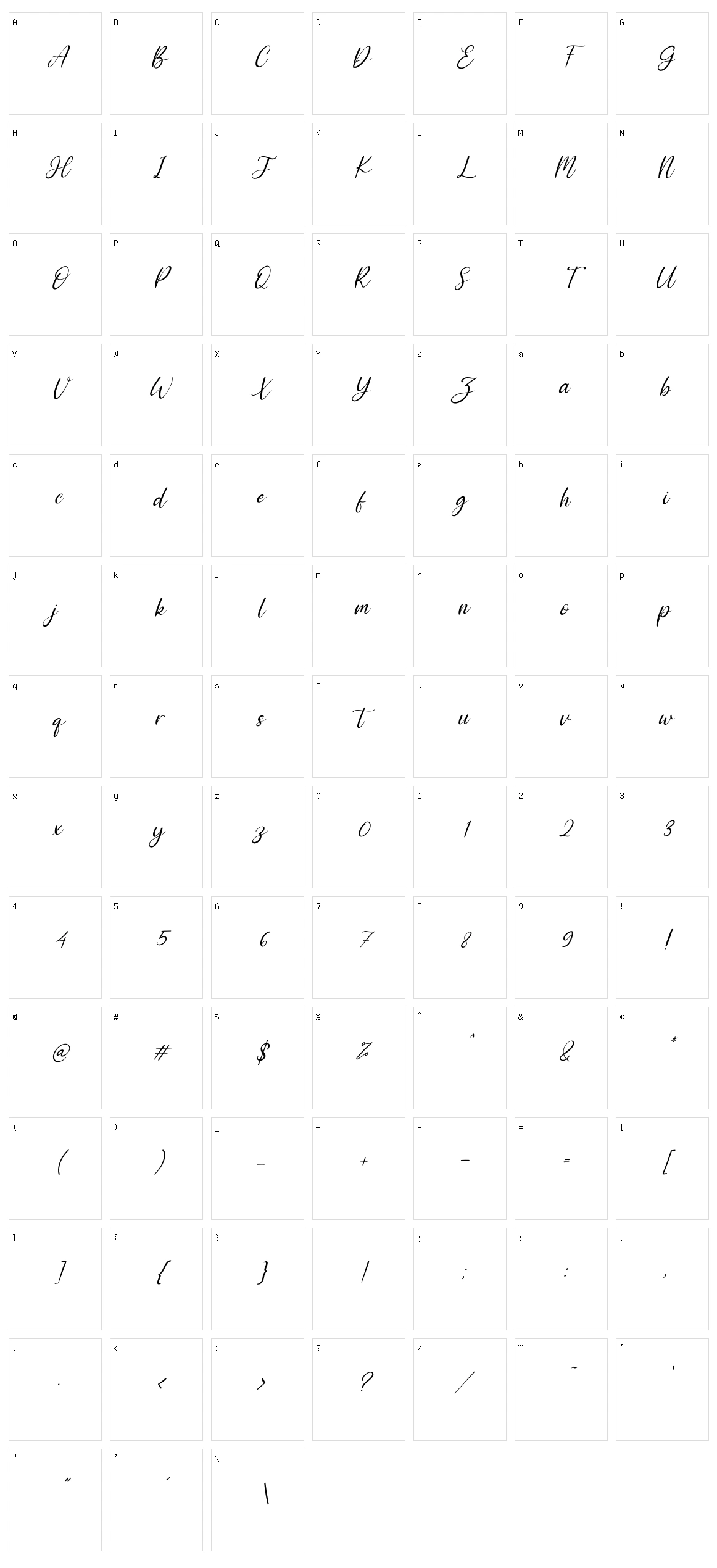
The free font Sharlene is carefully designed by Kong Font, showcasing a thoughtful balance of creativity and usability and falls under the Script font style. When you download the ZIP file, it contains only 225.58 KB of font files, making it lightweight and quick to download. Please review the license details below to understand permitted usage and distribution rights. If license information is not available, we recommend using this font for personal projects only or contacting the author directly for commercial usage permissions.